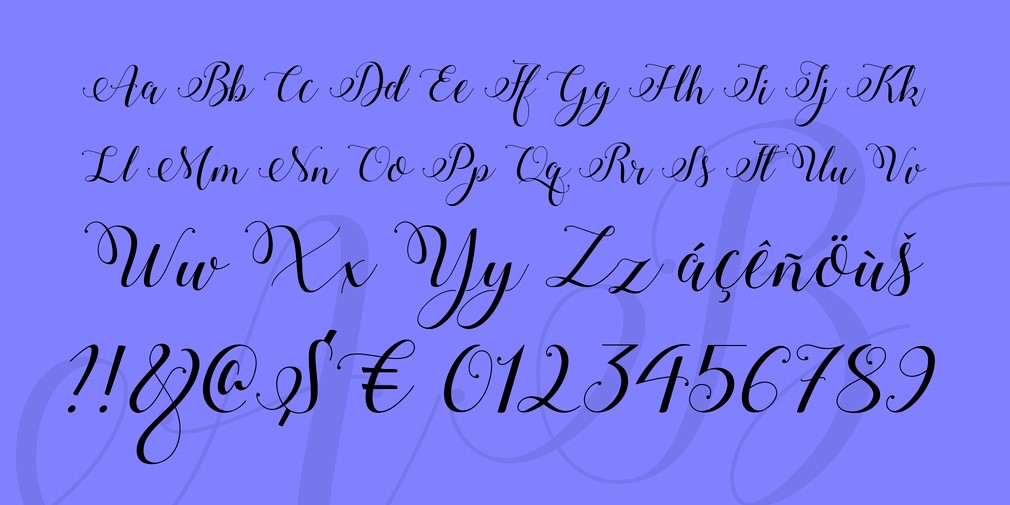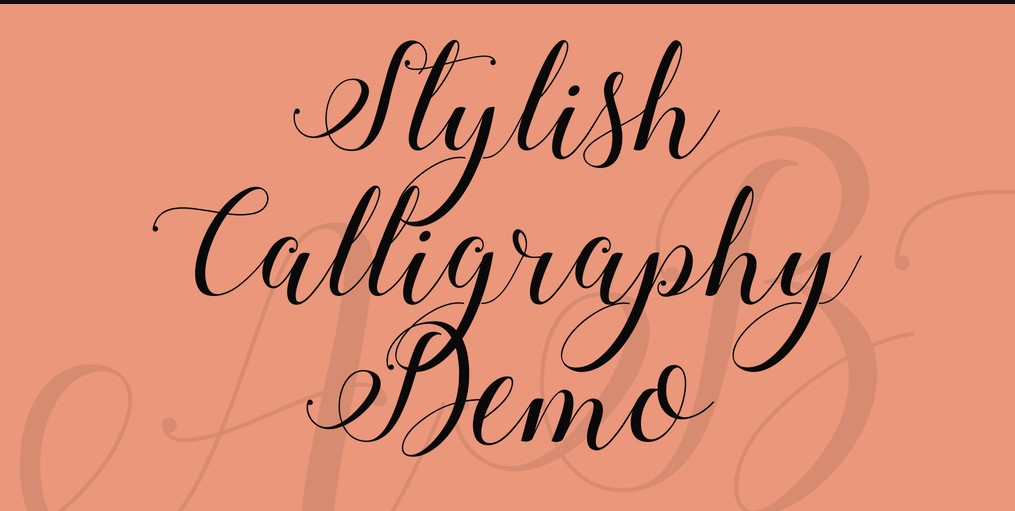
Stylish Calligraphy Font
Right here is the Stylish Calligraphy Font that is famous for its pairing function. This typeface is famous for its text generator function and also known as samantha font. That is one of the amazing fonts. This font is an adorable series mainly designed for easy and comfy on-show assessment.
A serif font is without a problem diagnosed with useful assets. I anticipate all of this could change within the next few years but the truth that excessive-choice video display devices have emerged as extra, commonplace. When they initiated the trade. Stylish Calligraphy Font Free In case you want to get critical to your designs, it’s far suitable to have a spread of extraordinary-looking courgette font.
Serifs are the practical wing of typography. Most of the people of the designers had been using it for their very private systems. And some others are taking it as an idea for making new typefaces. Download This getting to know flaming script has skinny letterforms and with quite beneficial spacing incredible for on-show display.
It’s orderly, has the enjoyment of the top-notch detail. It furthermore additives four hundred glyphs and trade characters. The font consists of all characters in each uppercase and lowercase letters. Now, you could have your private desired serif font and it is able to or might not appear on our list, however, we advise taking within the route of having a take a look at the options.